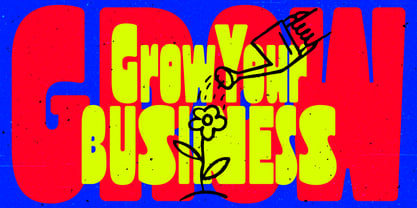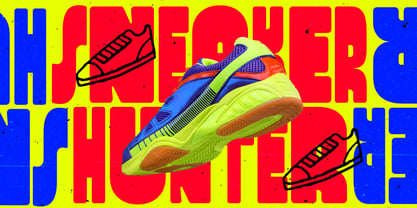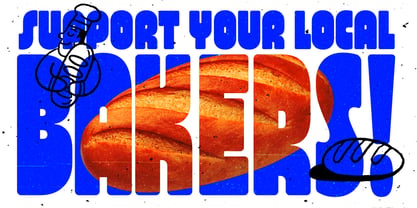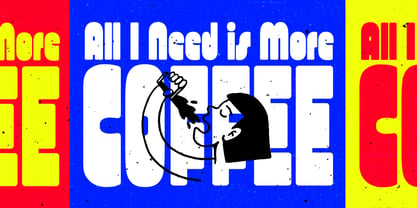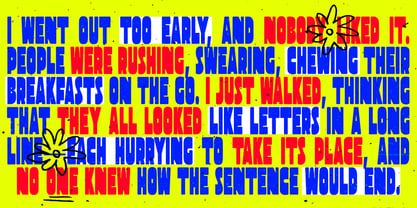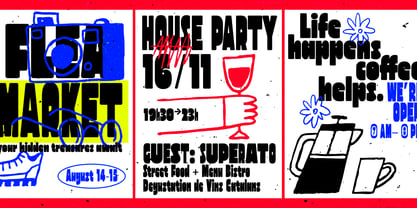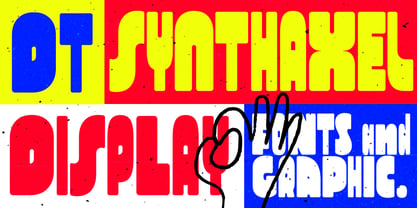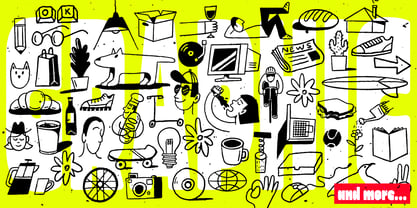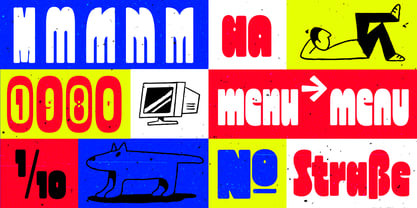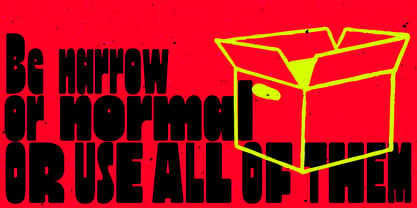
DT Synthaxel Display
The DT Synthaxel Display Font Family was designed by Maya De La Deveze and published by Deveze Type. DT Synthaxel Display contains 5 styles and family package options. More about this family
DT Synthaxel Display is the font that screams off the poster before you even read it. Loud, bold, unapologetic. Not for quiet headlines, not for timid designers. Pure energy, graphics on full blast, text that always takes the lead. Six widths, six moods — from heavy pressure to wide-open breath. And the graphics? They come as their own dedicated style — raw, playful, hand-drawn energy that turns type into a living, breathing visual system. DT Synthaxel Display doesn’t ask for permission, it takes the whole space.